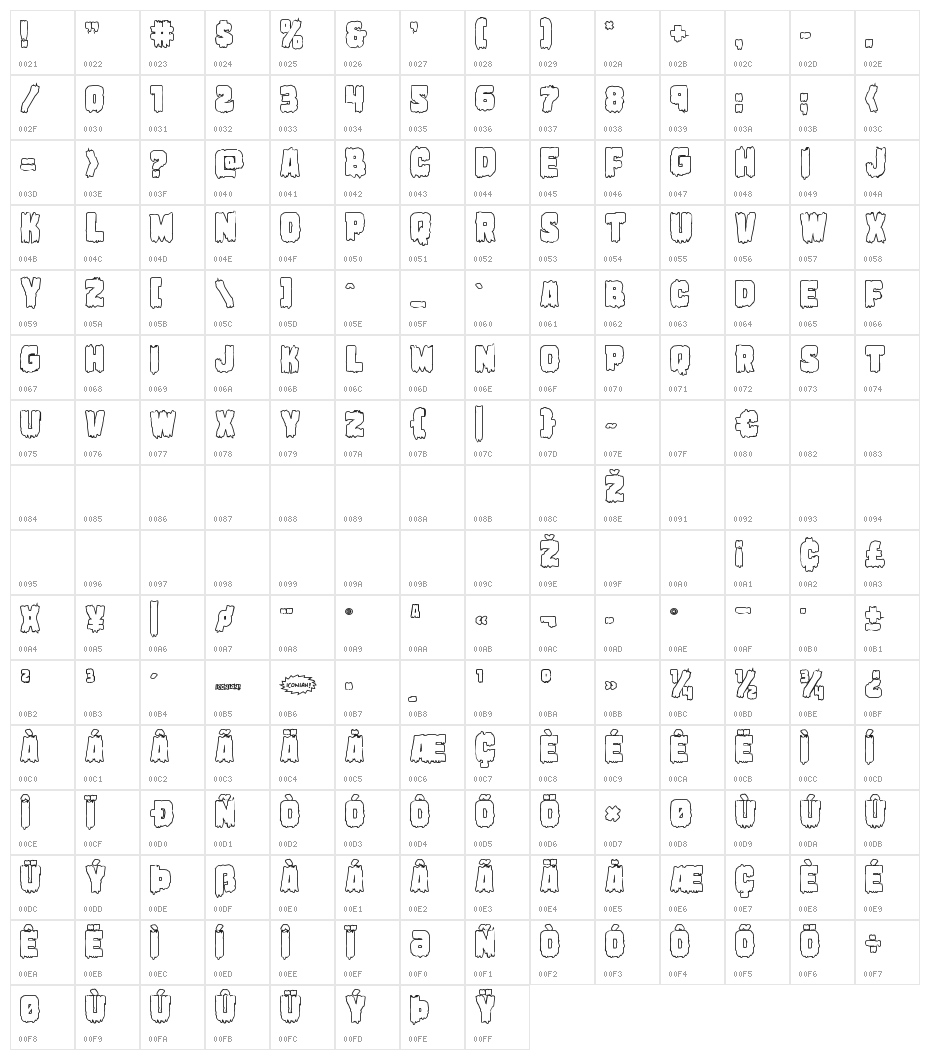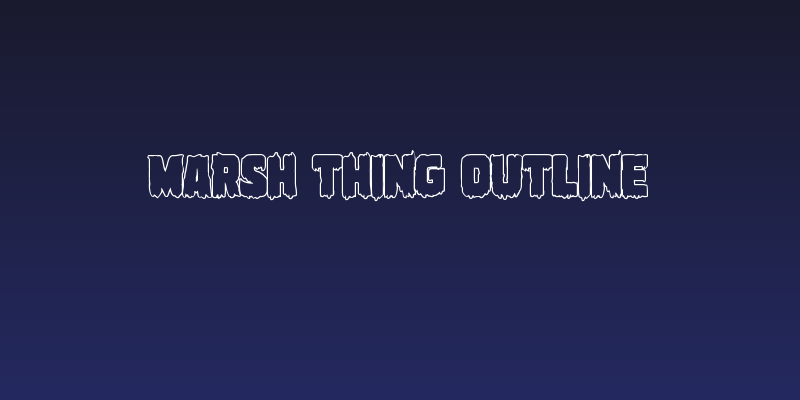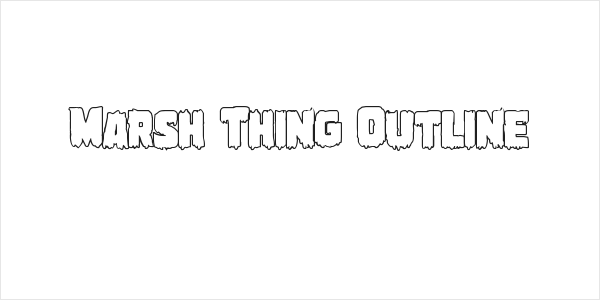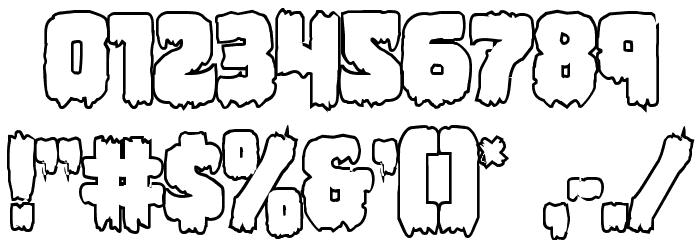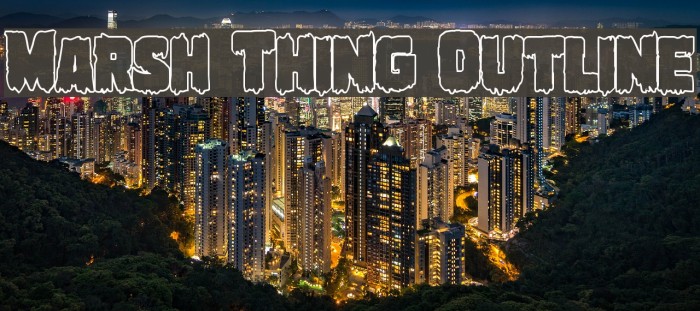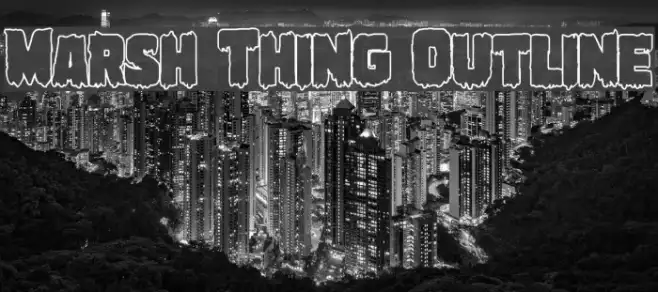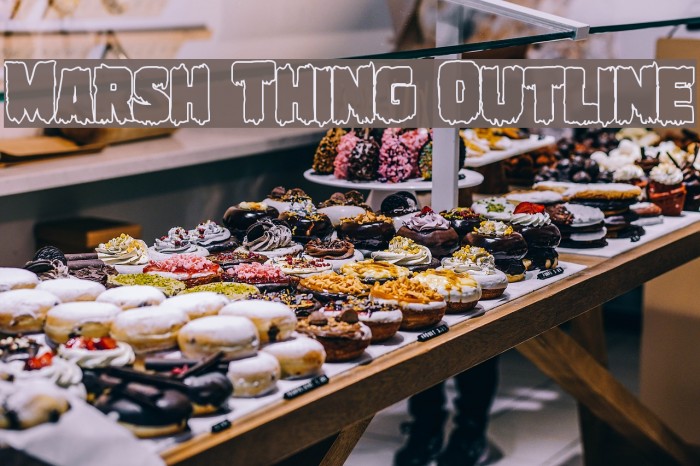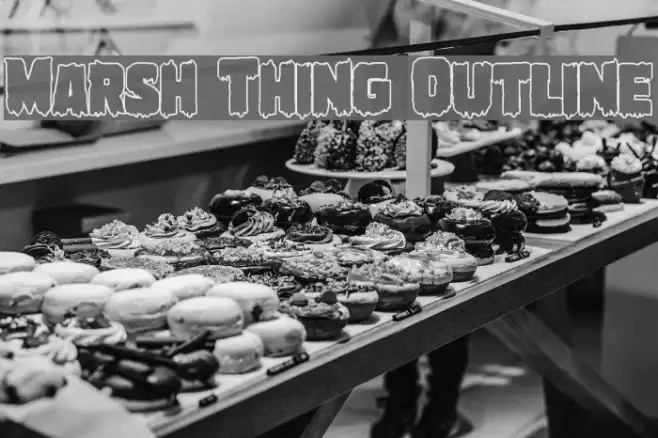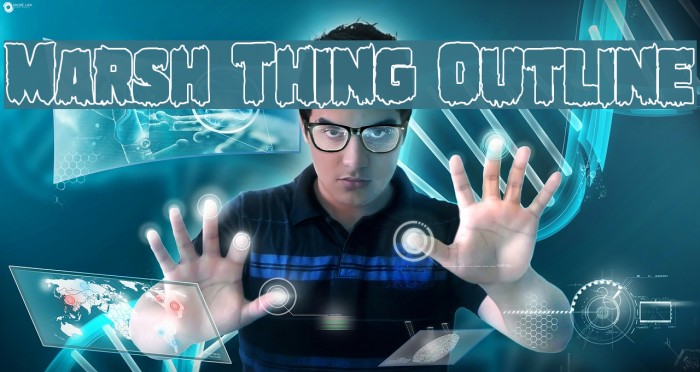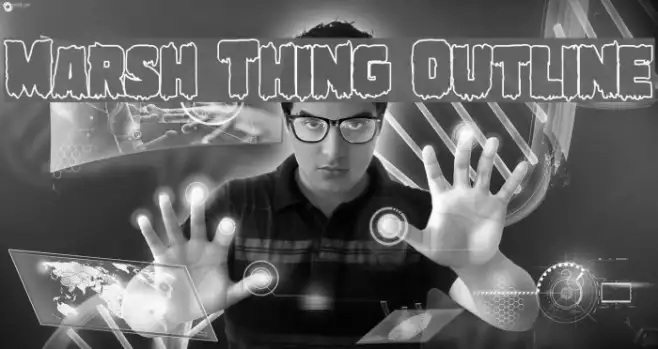
Marsh Thing Outline Font
Marsh Thing Outline Description
This font features a bold, playful design with an outline style that gives it a unique, eye-catching appearance. The characters have a dripping, organic look reminiscent of a marsh or swamp, which adds a quirky and fun element to the text. The uppercase and lowercase letters maintain a consistent style, with rounded edges and irregular contours that suggest movement and fluidity. The numbers and special characters are designed to match the overall theme, ensuring a cohesive look across all text elements. This font is perfect for projects that require a touch of whimsy and creativity.